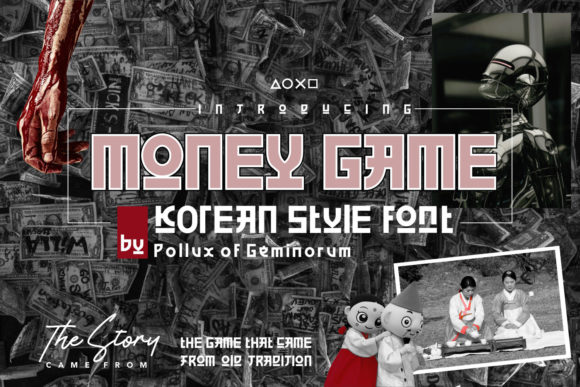
Money Game Font
Introducing Money Game Font, the captivating display font inspired by the thrilling Korean series that has taken the world by storm. This extraordinary font is your gateway to creating designs that exude the essence of Korean culture and evoke the heart-pounding excitement of the show.
With Money Game Font, you'll effortlessly craft movie posters that transport viewers to the enigmatic world of high-stakes finance. Greeting cards adorned with this font will convey heartfelt messages with a touch of Korean flair. Your social media content will ignite engagement, as the unique characters command attention and draw followers into your captivating world.
Unleash your creativity and captivate your audience with YouTube videos that showcase the captivating aesthetics of Money Game Font. It's the perfect choice for logo design, imbuing your brand with an air of Korean elegance and sophistication.
But Money Game Font's allure extends far beyond its visual appeal. Each character is meticulously crafted to evoke the raw emotions of the Korean language, infusing your designs with authenticity and depth. Imagine the impact of headlines that leap off the page, conveying messages with the same intensity and intrigue that kept you glued to your screen during every episode of Money Game.
Whether you're a seasoned designer or just starting your creative journey, Money Game Font is the perfect tool to elevate your designs and connect with your audience on a deeper level. Its versatility knows no bounds, making it an indispensable asset for a wide range of projects:
- Mesmerizing movie posters that captivate audiences
- Heartfelt greeting cards that convey warmth and Korean charm
- Engaging social media content that sparks conversations
- Compelling YouTube videos that leave a lasting impression
- Eye-catching logo designs that establish a strong brand identity